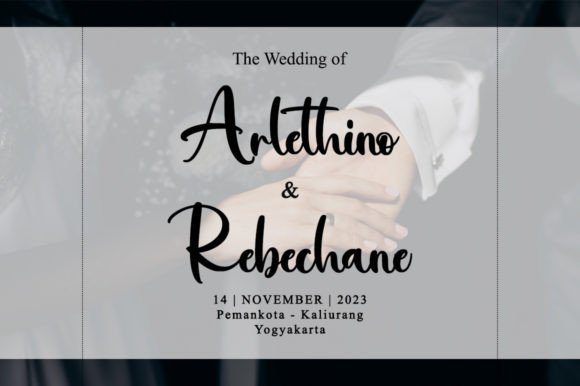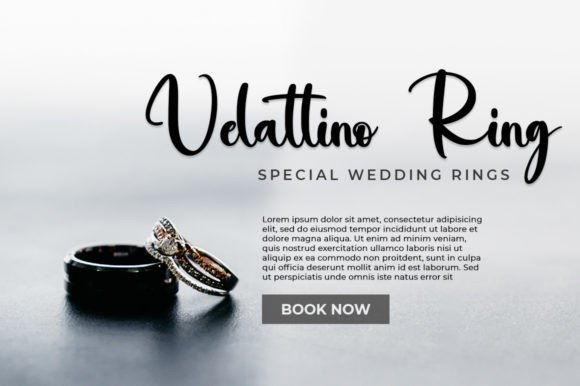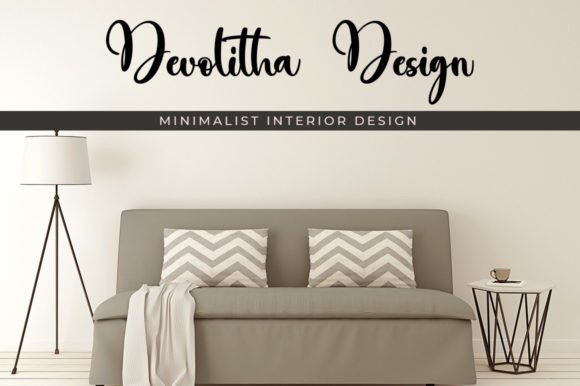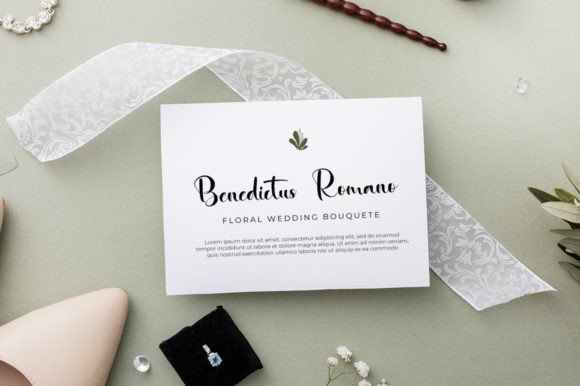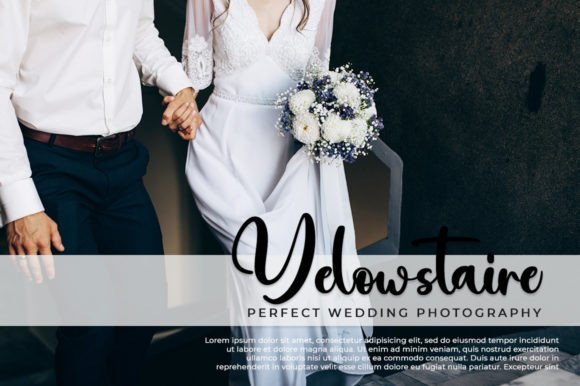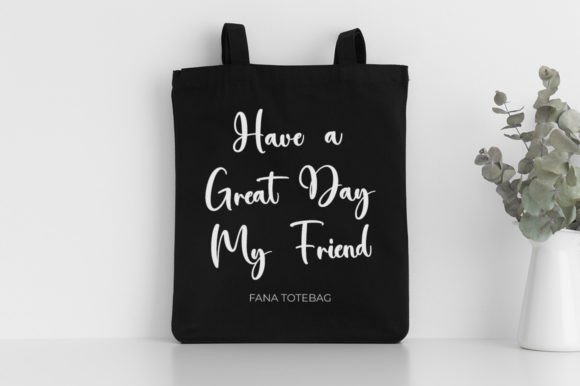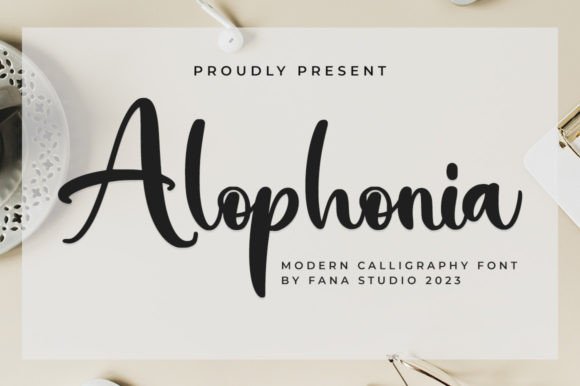
Introducing Alophonia Font: Elevate Your Designs with Elegance and Sophistication
In the world of digital design, typography plays a crucial role in conveying the tone and aesthetic of a project. For designers and crafters seeking to add a touch of elegance and sophistication to their work, the Alophonia Font is an exceptional choice. This beautiful script font offers a personal touch to your latest art project with its elegant, classy, and modern look, making it perfect for a wide range of applications.
What is Alophonia Font?
Alophonia Script is a stunning script font that boasts a gorgeous typographic style, ideal for various projects such as logos and branding, invitations, stationery, wedding designs, social media posts, advertisements, product packaging, product designs, labels, photography, watermarks, and special events. Its versatility and unique charm make it an excellent addition to any designer’s toolkit.
Key Features of Alophonia Font
• Elegant and Classy Design: Alophonia Font features an elegant and classy design that adds a touch of sophistication to any project.
• Modern Look: The font’s modern look ensures that your designs stay up-to-date and fresh.
• Handwriting Taste: Alophonia Script offers a beautiful handwriting taste, perfect for designs that require a personal touch.
• Versatility: The font is suitable for a wide range of projects, from logos and branding to social media posts and product packaging.
Uses of Alophonia Font
Alophonia Font is an incredibly versatile font that can be used in various design projects, including:
• Logos and Branding: Create a lasting impression with a unique and elegant logo that reflects your brand’s personality.
• Invitations and Stationery: Add a touch of sophistication to your invitations, letters, and other stationery items.
• Wedding Designs: Make your wedding designs, such as invitations, programs, and decorations, truly special with Alophonia Script.
• Social Media Posts: Elevate your social media presence with stylish and engaging posts that showcase your brand’s personality.
• Advertisements and Product Packaging: Create eye-catching advertisements and product packaging that stands out from the competition.
Benefits of Using Alophonia Font
By incorporating Alophonia Font into your designs, you can:
• Enhance Your Brand’s Image: Create a professional and elegant image for your brand that resonates with your target audience.
• Stand Out from the Competition: Use a unique and distinctive font that sets your designs apart from others.
• Save Time and Effort: With Alophonia Script, you can create stunning designs quickly and efficiently, saving you time and effort.
In conclusion, Alophonia Font is an exceptional script font that offers a personal touch to your designs with its elegant, classy, and modern look. Its versatility, unique charm, and wide range of applications make it an excellent choice for designers and crafters seeking to elevate their work. Whether you’re creating logos, invitations, social media posts, or product packaging, Alophonia Script is sure to impress.